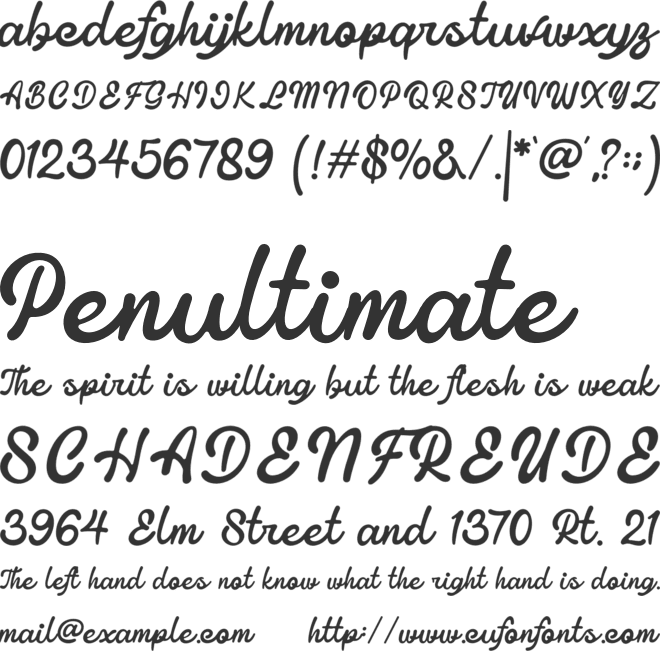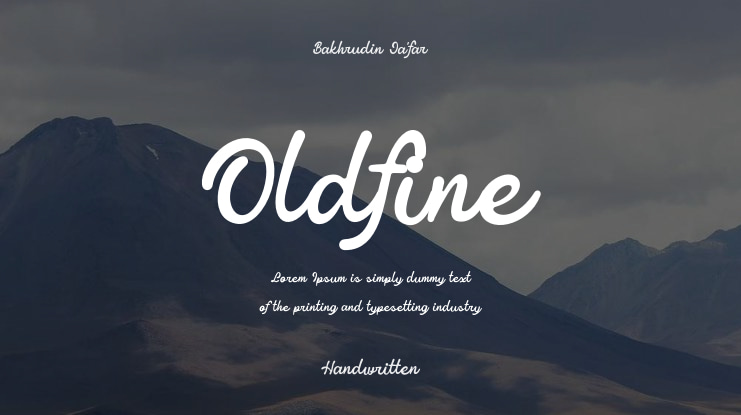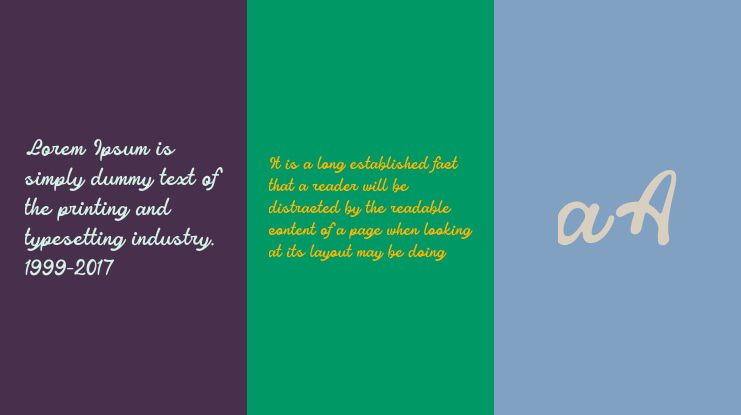
Oldfine Font
Oldfine a sophisticated handwritten script font crafted with meticulous attention to detail. Designed by Roomspace Creative Lab, Oldfine exudes an air of elegance and charm, making it the perfect choice for a wide range of design projects. From wedding invitations and greeting cards to logos, branding, and social media graphics, Oldfine brings a touch of refinement and personality to every creation.
Its smooth curves and delicate strokes make it versatile and suitable for both formal and casual contexts. Oldfine is fully equipped with a set of uppercase and lowercase letters, numerals, punctuation marks, and a variety of ligatures to ensure seamless connectivity between characters. Compatible with popular design software, this font is your go-to choice for adding a handwritten, personal touch to your work.
Regular
Uppercase & Lowercase
Special Alternate Characters
Numbers & Punctuation
Multilingual Support